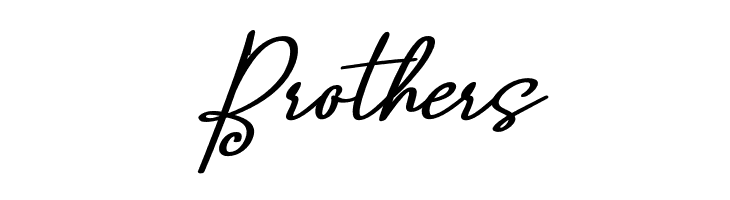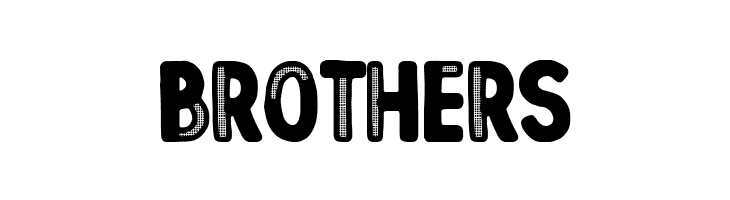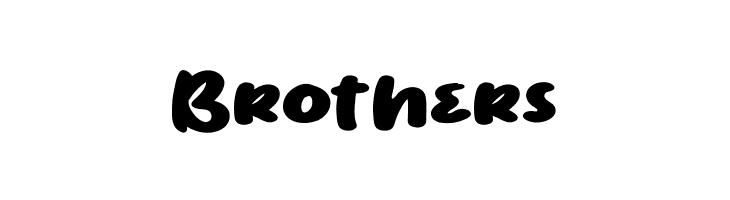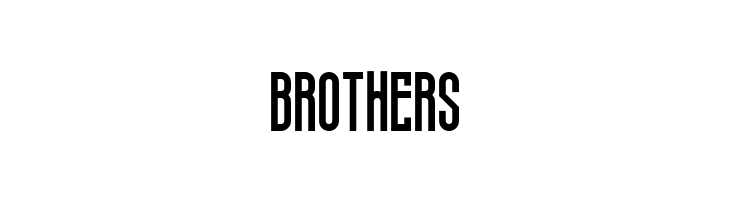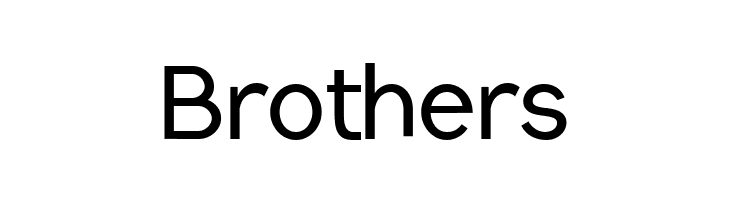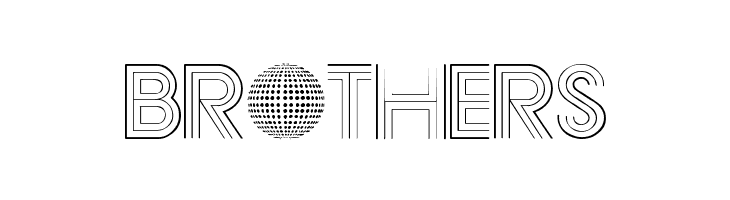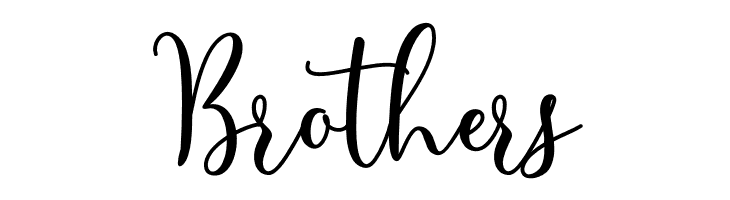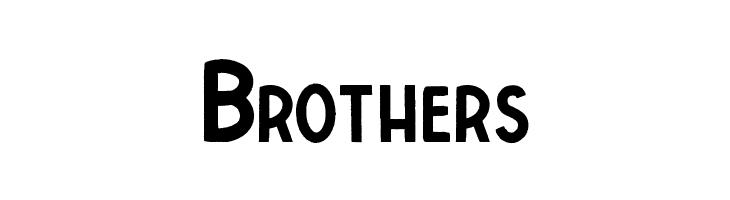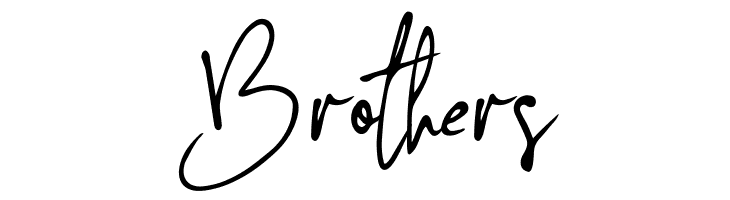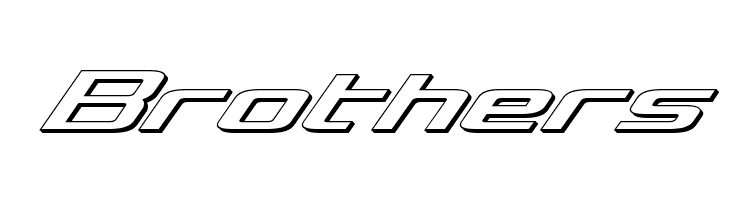
A playful, bold, and bubbly font with a glossy, liquid-like appearance.
A decorative font with characters enclosed in ornate circular emblems.
A playful, hand-drawn font with a whimsical and informal style.
A grungy, brush-style cursive font with splatter effects.
A bold, playful handwritten font with a whimsical and dynamic style.
A playful handwritten font with smooth curves and a casual style.
A bold, playful font with thick, rounded strokes and a whimsical style.
A bold, playful font with high contrast and unique negative space design.
A bold, playful font with high contrast and dynamic, tilted characters enclosed in squares.
A playful, hand-drawn font with bold, rounded letterforms and a whimsical style.
A playful and elegant script font with a flowing, handwritten style.
A bold, geometric font with outlined characters for a modern, impactful look.
Bold, decorative script font with flowing style.
A modern, rounded typeface with clean lines and balanced spacing.
A modern, rounded font with clean lines and balanced proportions.
A modern, rounded sans-serif font with a clean and friendly appearance.
A clean, rounded sans-serif font with a modern and friendly appearance.
A bold, geometric font with a futuristic and blocky design.
Expressive handwritten script with fluid, casual strokes.
A bold, brush-style font with a playful and energetic handwritten appearance.
A bold, italic script font with a dynamic and hand-drawn style.
A playful, tilted handwritten font with bold, consistent strokes.
A playful, rounded font with a hand-drawn, friendly appearance.
A playful, casual handwritten font with smooth, rounded strokes.
A bold, dynamic font with a modern and playful style.
A playful, bold font with decorative, cartoonish elements.
A playful, balloon-like font with smooth, rounded characters.
A playful, handwritten font with a comic, balloon-like style.